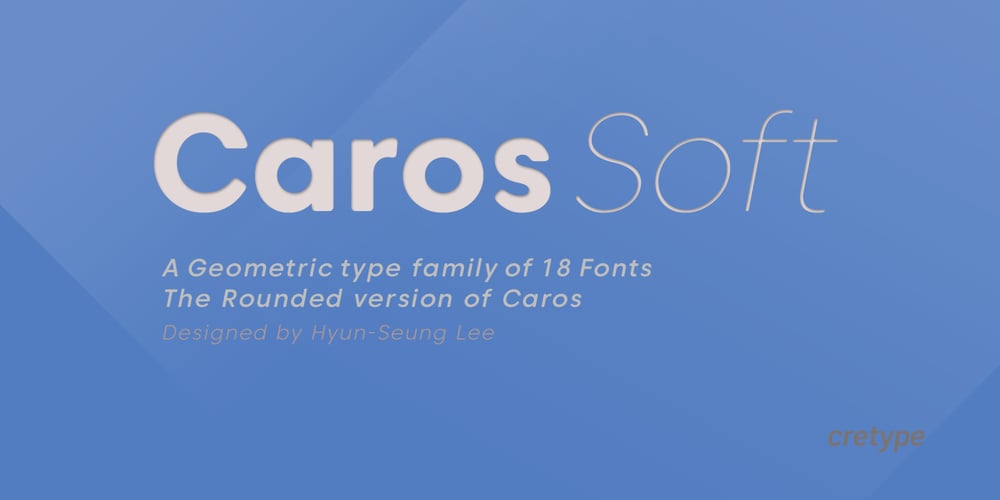
Caros Soft Font Family was designed by Hyun-Seung Lee and published by cretype. Caros Soft contains 18 styles and family package options. Caros Soft is the rounded version of Caros. Caros Soft Family is a modern sans-serif typeface that is clean, simple and highly readable. Letters in this type family are designed with geometric shapes without any decorative distractions. The spaces between individual letter forms are precisely adjusted to create the perfect typesetting. Caros Soft is a versatile type family of 18 fonts. Caros Soft family consists of 9 weights (Thin, ExtraLight, Light, Regular, Medium, Bold, ExtraBold, Heavy & Black) with their corresponding italics. The Open Type fonts contain complete Latin 1252, Cyrillic, Central European 1250, Turkish 1254 character sets. Each font includes proportional figures, tabular figures, numerators, denominators, superscript, scientific inferiors, subscript, fractions and case features. We highly recommend it for use in books, web pages, screen displays, and so on.